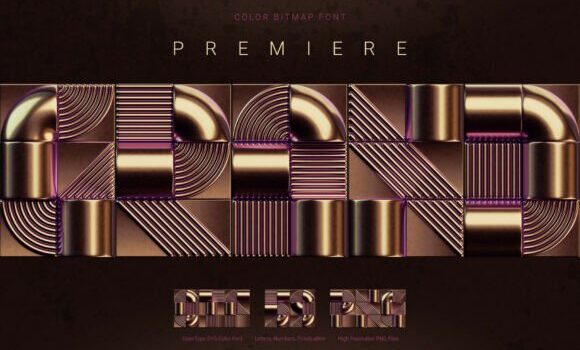
Premiere Grand Font – Free Download Introduction to Premiere Grand Font Elevate your designs with Premiere Grand, a sophisticated 3D golden font that captures the sleek geometry and high-end glamour of the Art Deco era. 📸 Preview Gallery 3 images